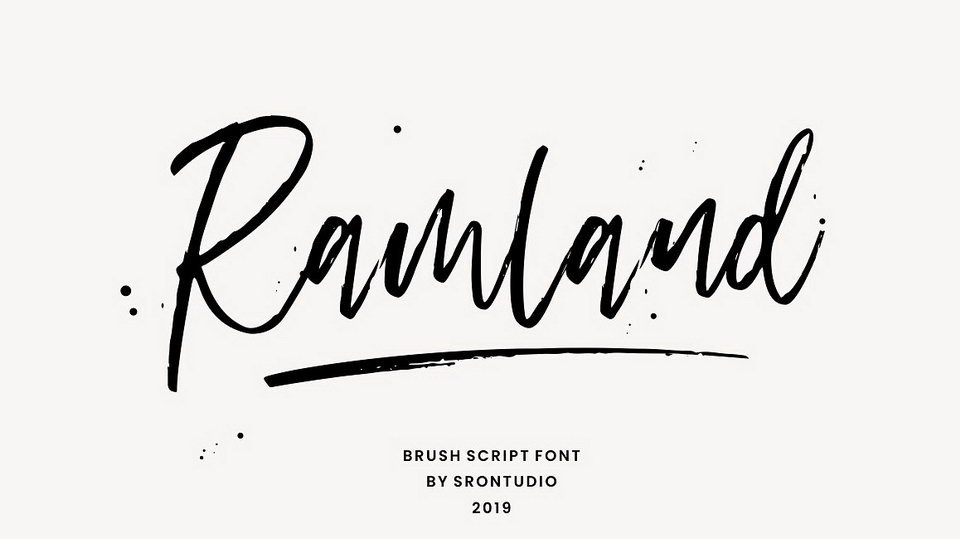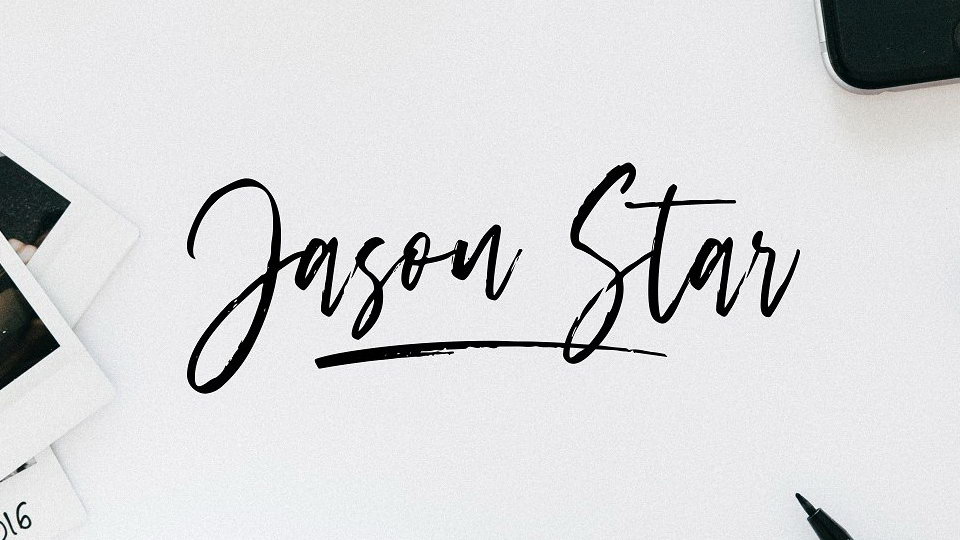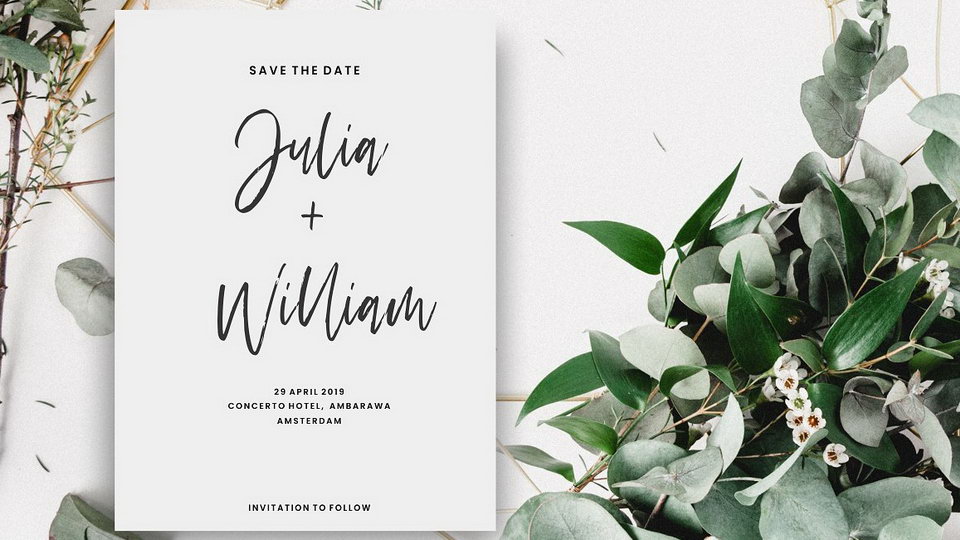
Ramland is an impressive natural textured handbrused font. It comes with a full set of uppercase and lowercase letters, multilingual symbols, numerals, punctuation.
Ramland is perfect for logo, invitation, stationery, wedding designs, social media posts, advertisements, product packaging, product designs, label, photography, watermark, special events or anything.